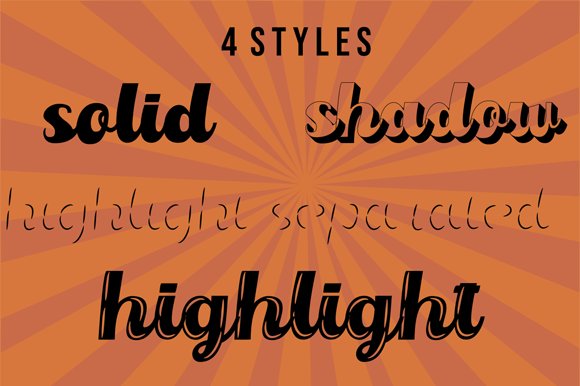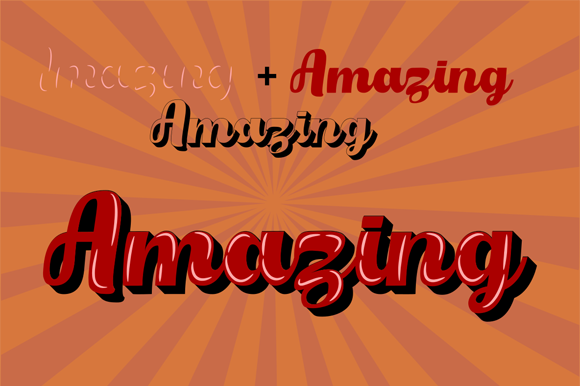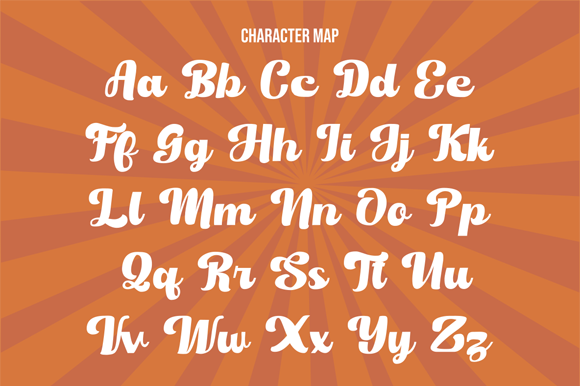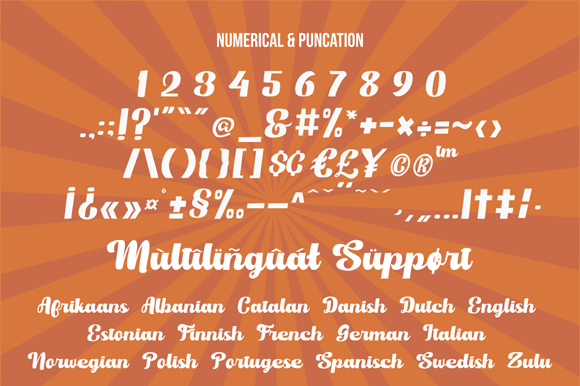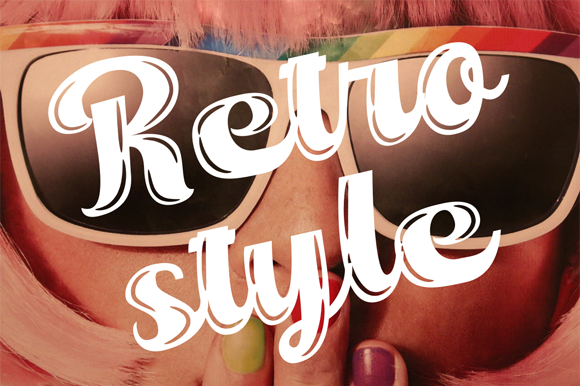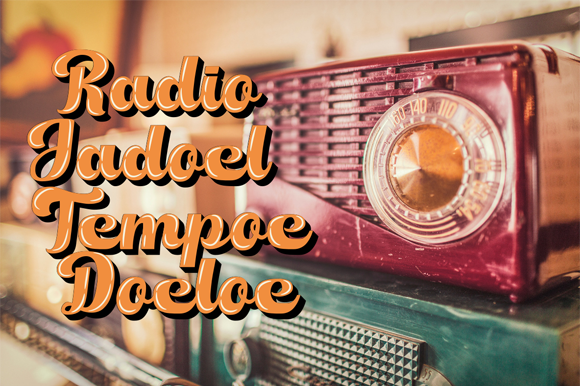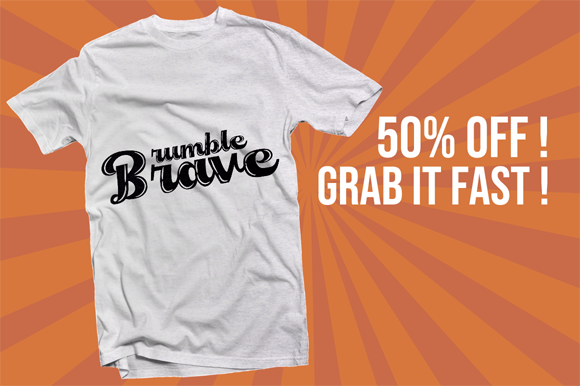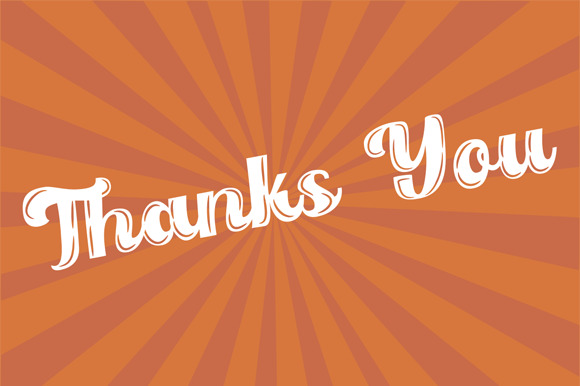
Orectic Script Font
About Orectic Script Font
The Orectic is a fun hand lettered script font. It has a bold style and comes in four different styles and a layered system, so you can easily create a shadow and highlight effects.
It’s suitable for logos, titles, posters, labels, t-shirts, branding, flyers, etc.